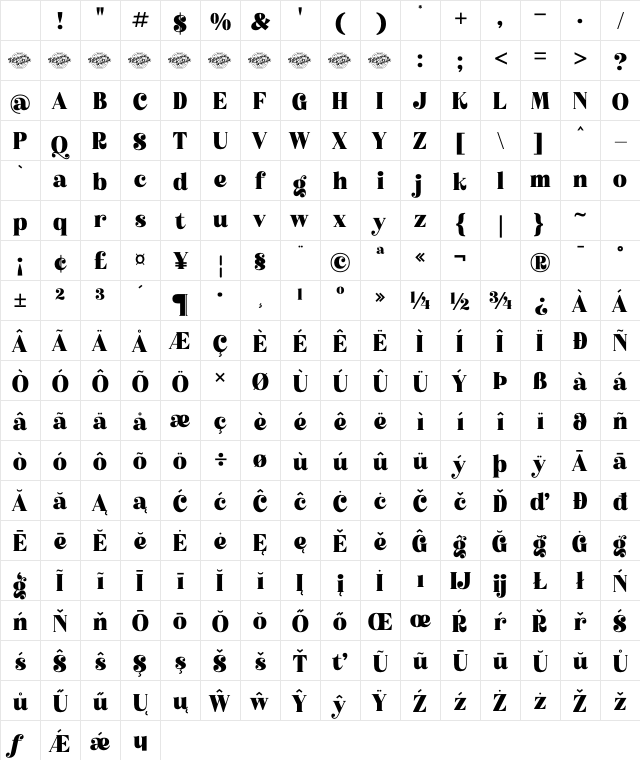
Complete Atlantis Famingo DEMO VERSION Regular glyph index. Displaying only characters natively supported by Atlantis Famingo DEMO VERSION Regular font.
Atlantis Famingo DEMO VERSION is a composed and adaptable typeface that performs quietly and consistently across a wide range of design contexts.